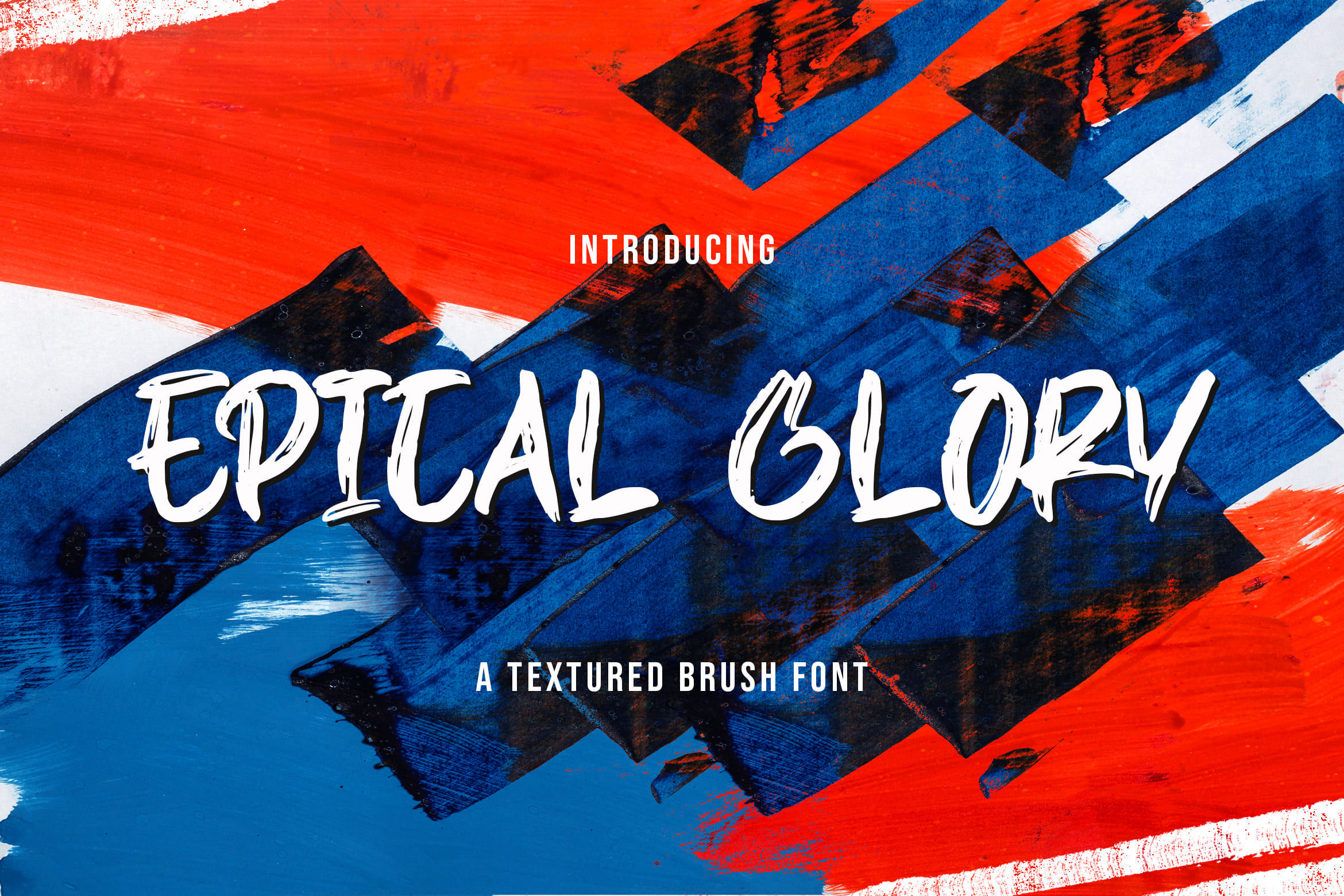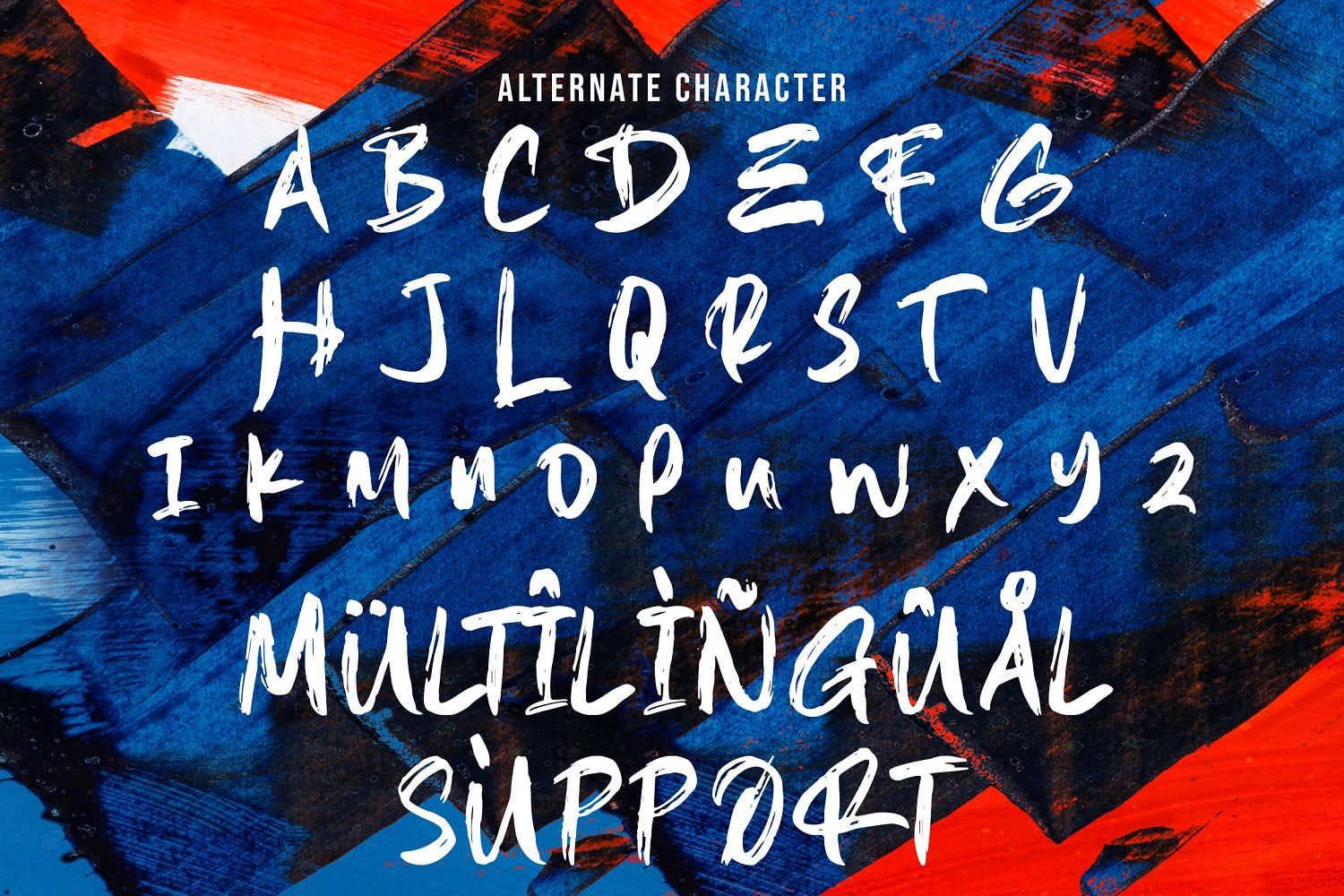
Epical Glory captures the nuance of personal handwriting—raw, expressive, and naturally imperfect. Inspired by real brush strokes and handwritten forms, this font brings a spontaneous and honest human touch, as if written directly from hand to paper.
The letterforms flow loosely and organically. Each stroke varies in pressure and texture, creating dynamic movement that feels alive. Epical Glory balances the line between manual expression and visual clarity—not overly rough. This contrast gives the font its character: free-spirited, confident, and expressive, yet still easy to read.
Emotion plays a central role in the design of Epical Glory. Textured edges and inconsistent brush strokes evoke warmth, passion, and individuality. Suitable for both short phrases and statements, this font communicates authenticity and emotion, making messages feel personal and easy to connect with.